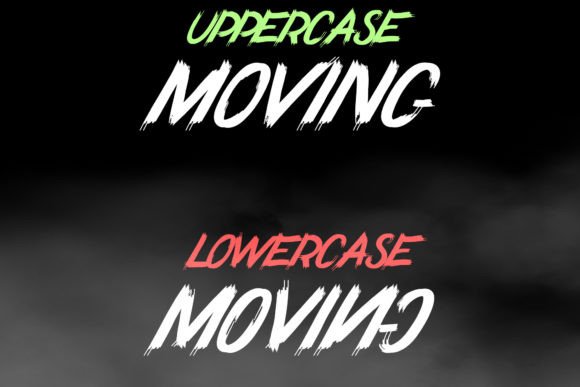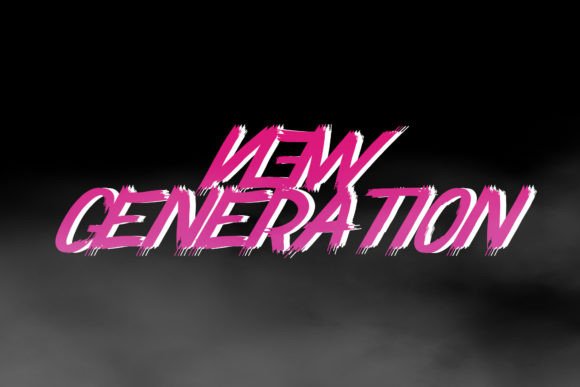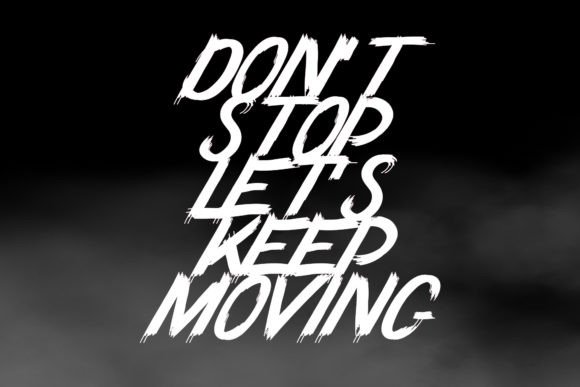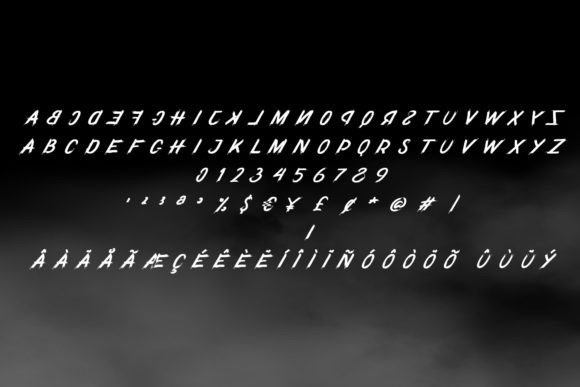
Introduction to Moshing Font
Moshing is a font with brushed lines.
It is suitable for your design needs, t-shirt design, social media design, product design, branding design, crafts, advertising, and others .
Key Features of Moshing Font
Moshing Font offers exceptional quality and versatility, making it a valuable addition to your design toolkit. Whether you’re creating for personal projects or commercial use, Moshing Font delivers professional results.